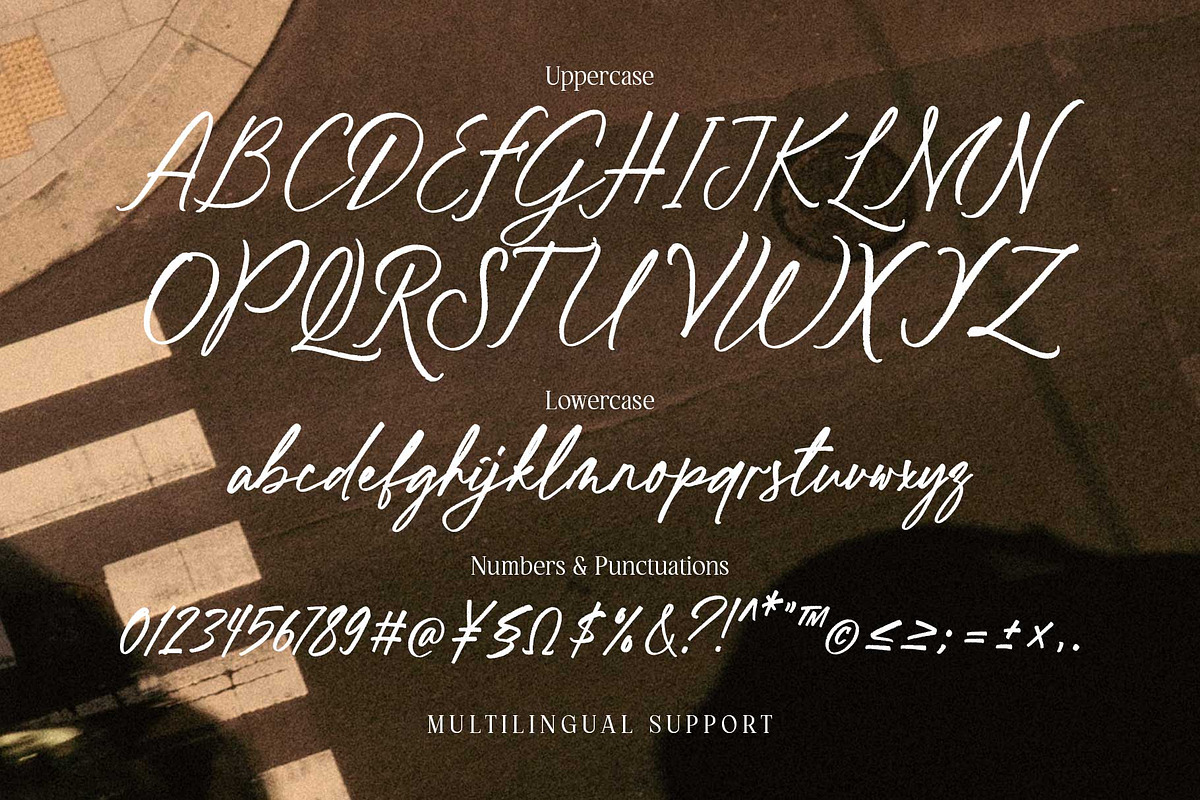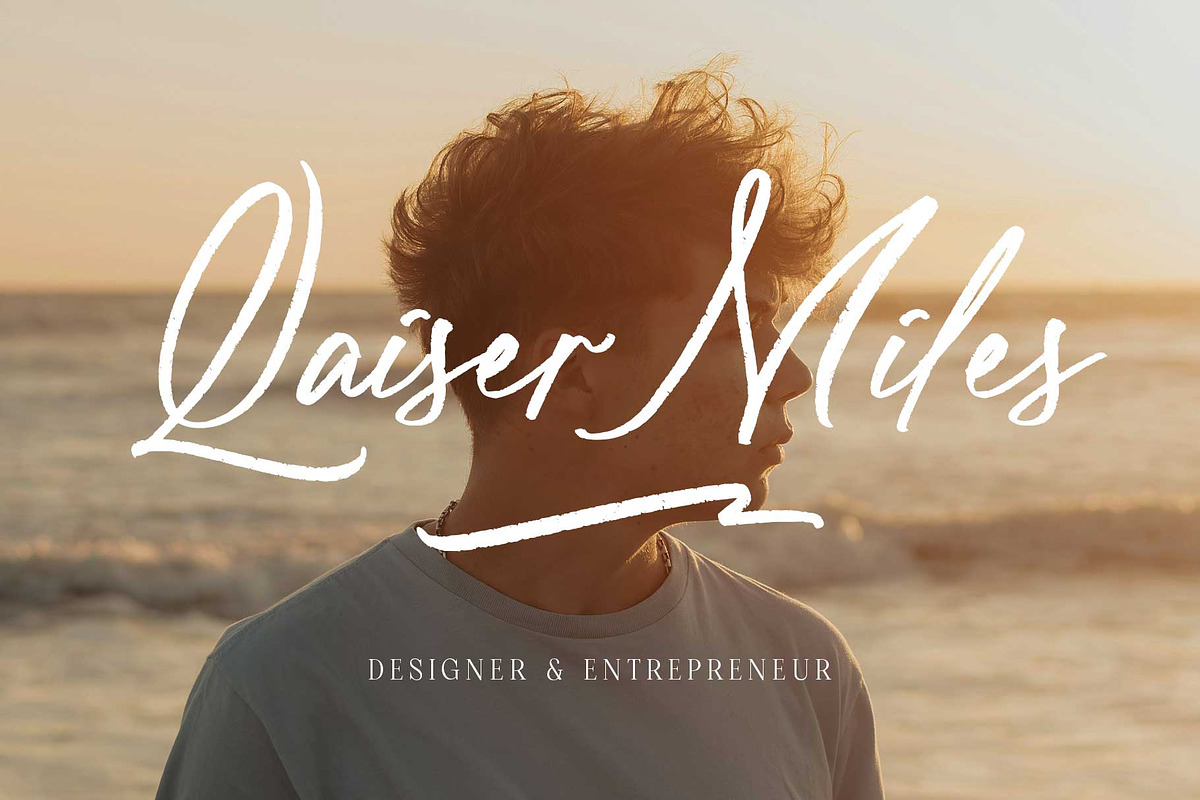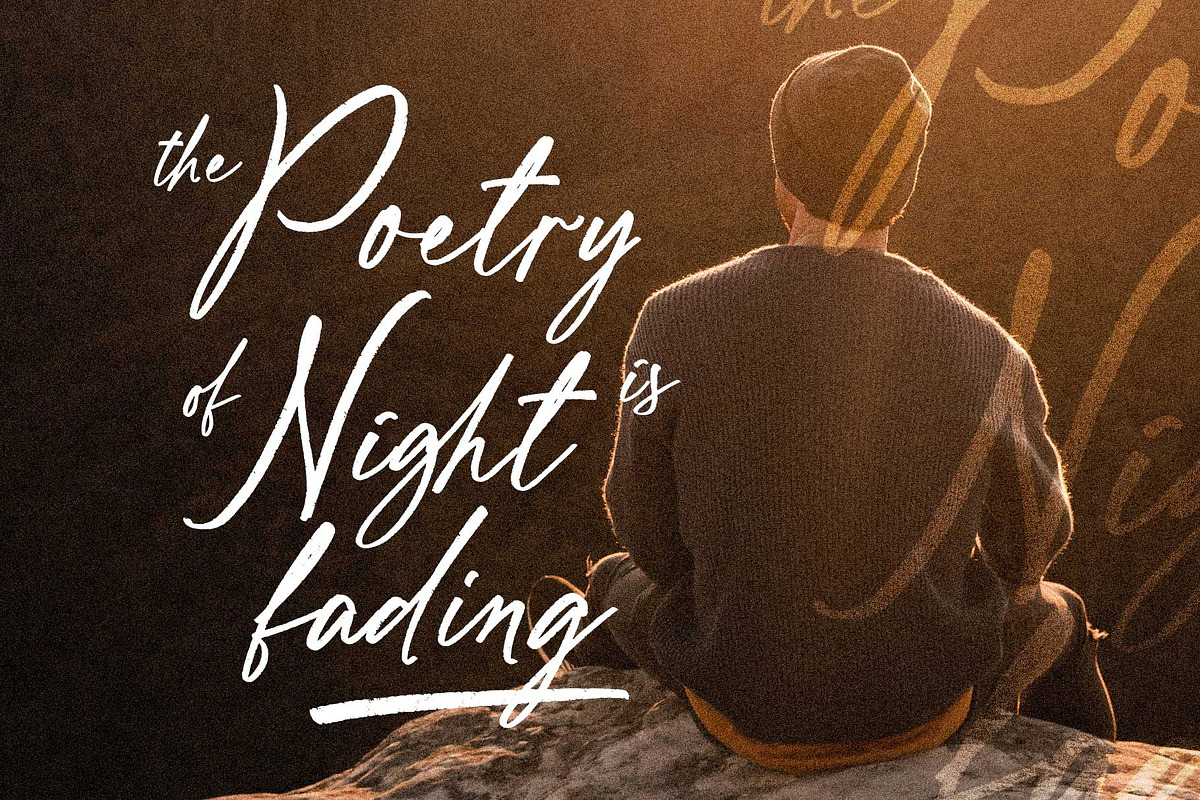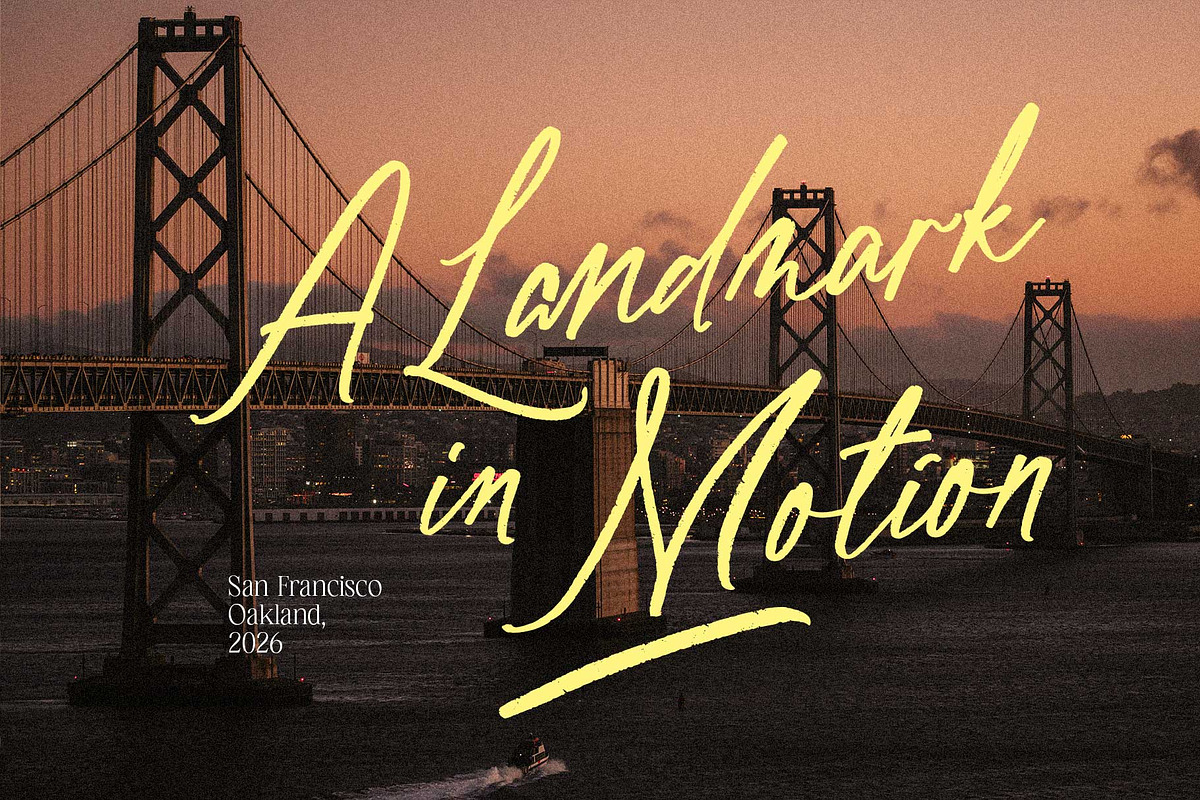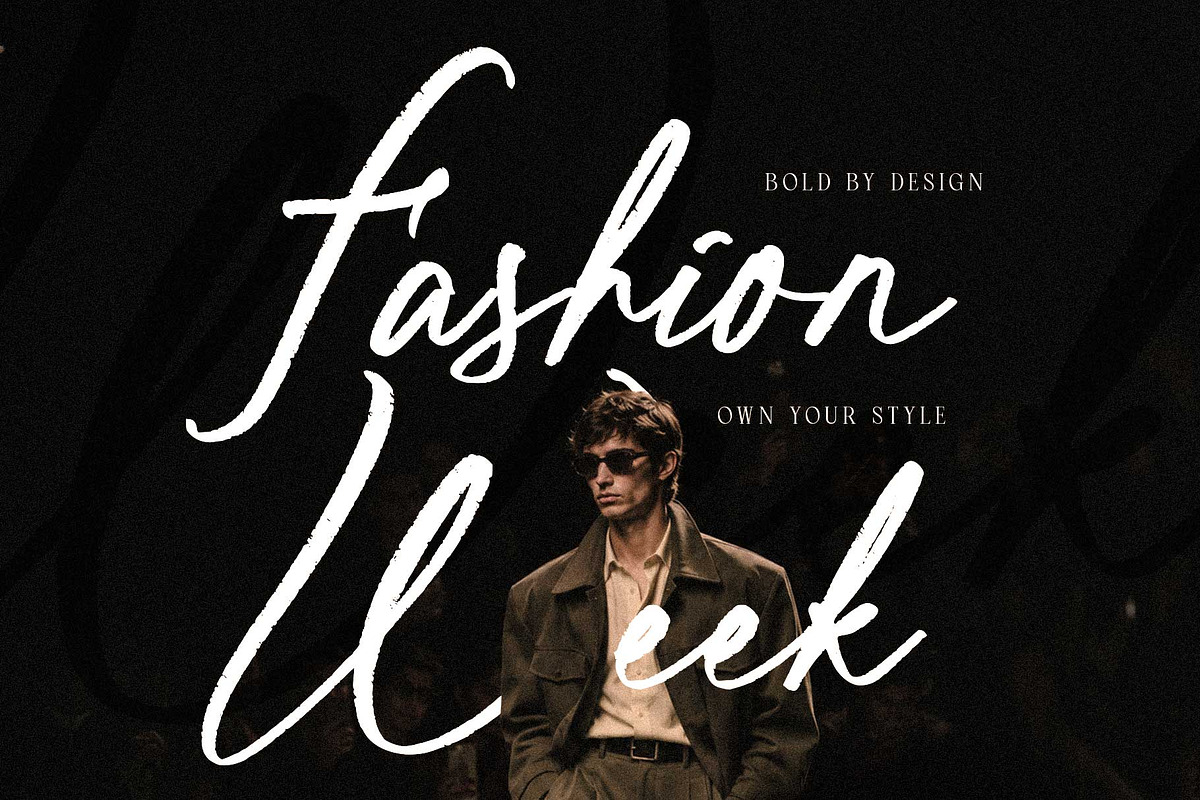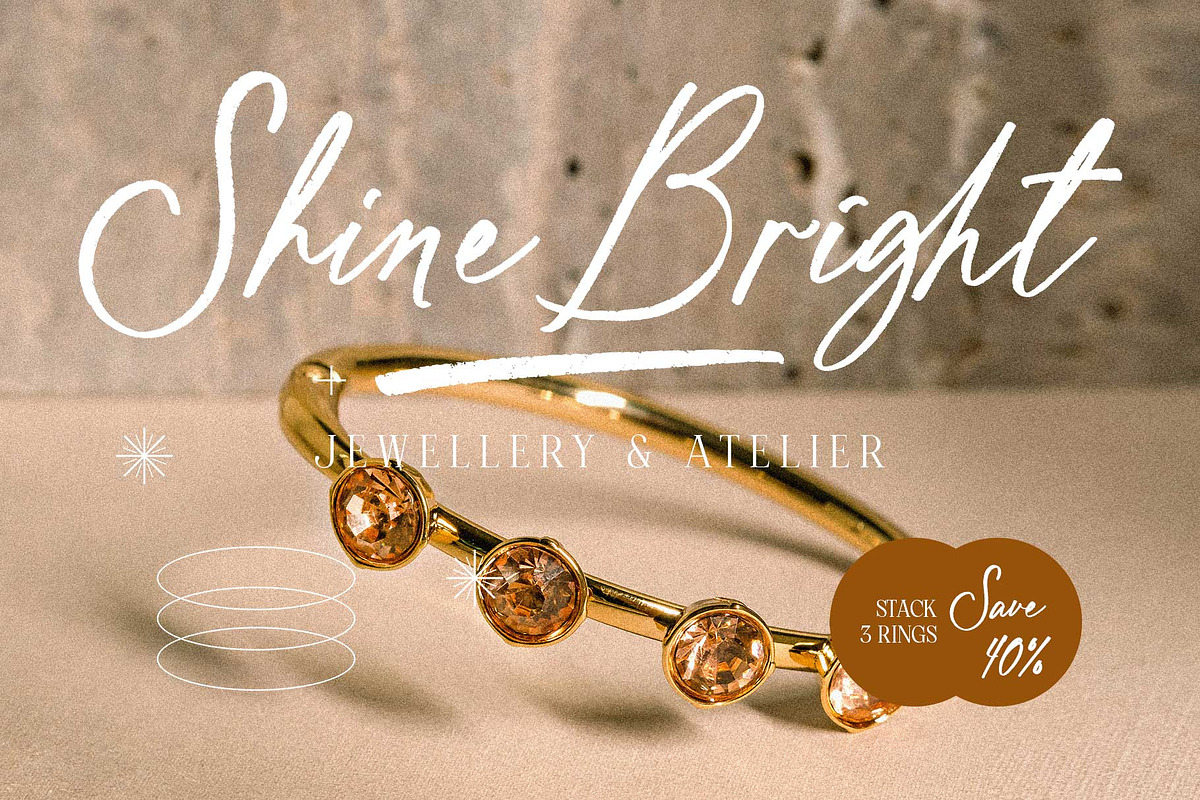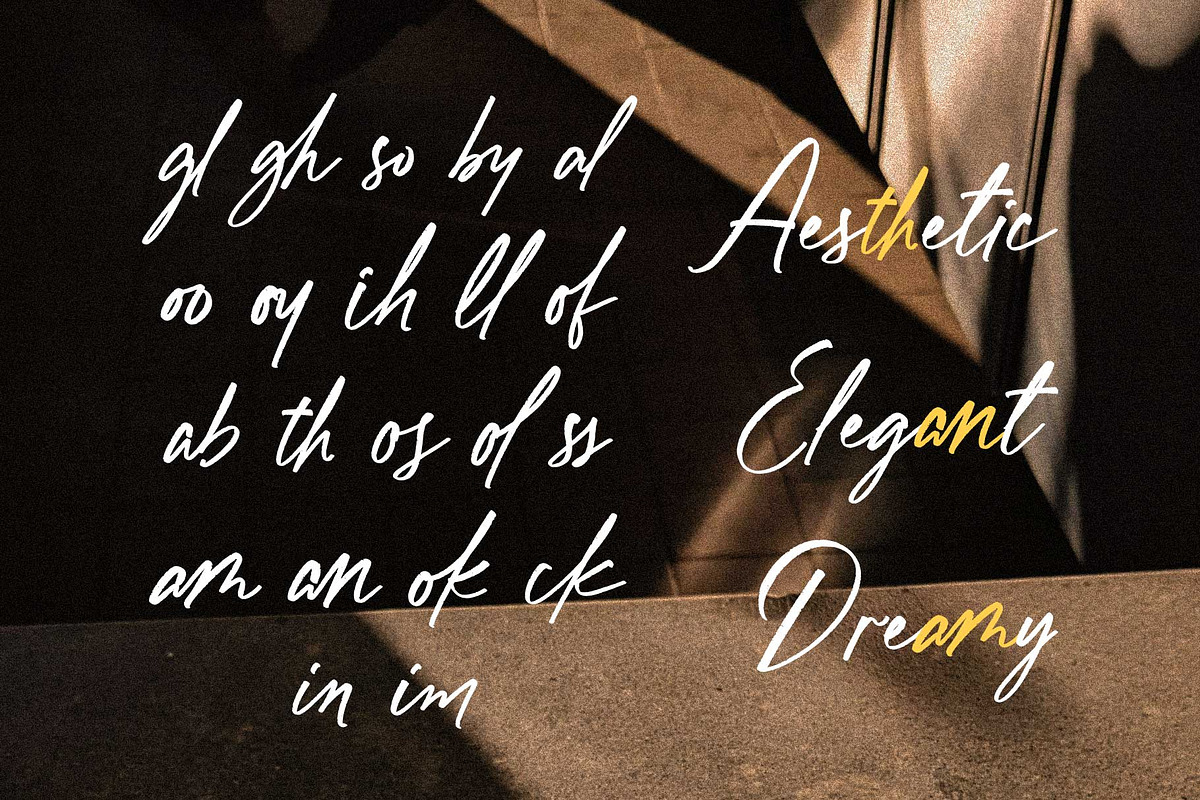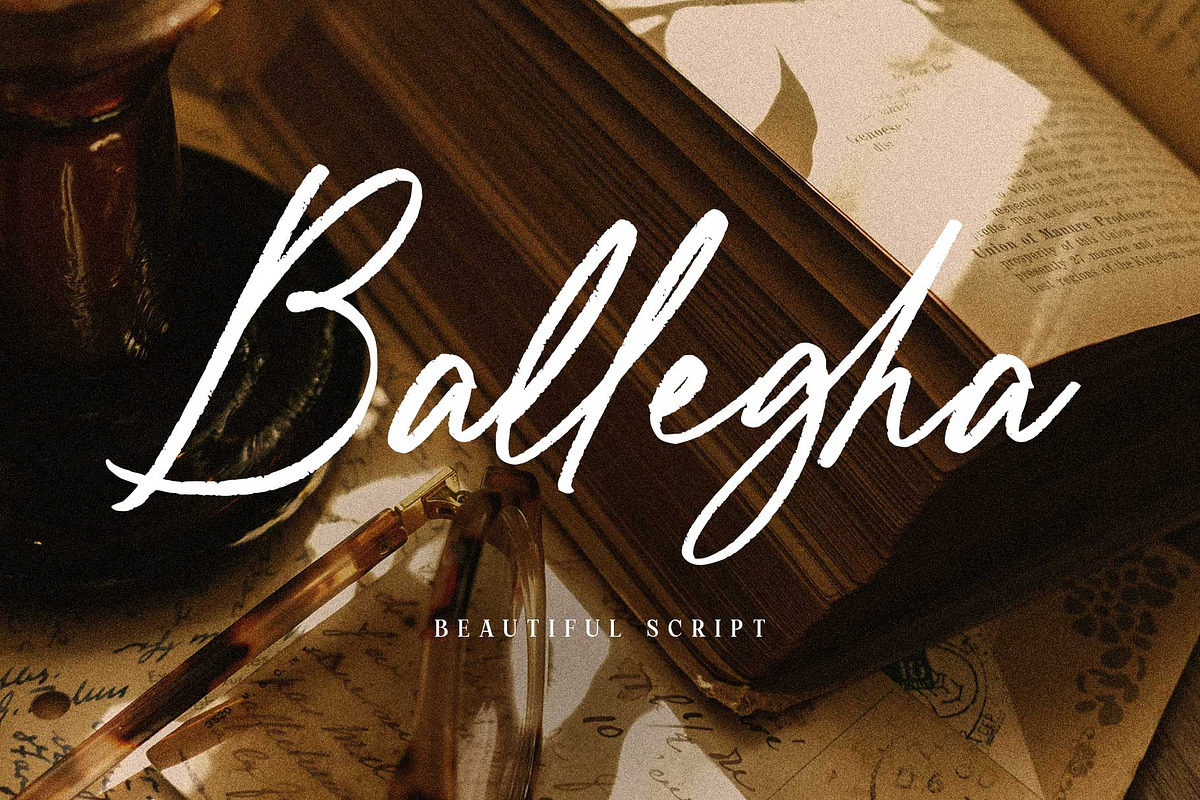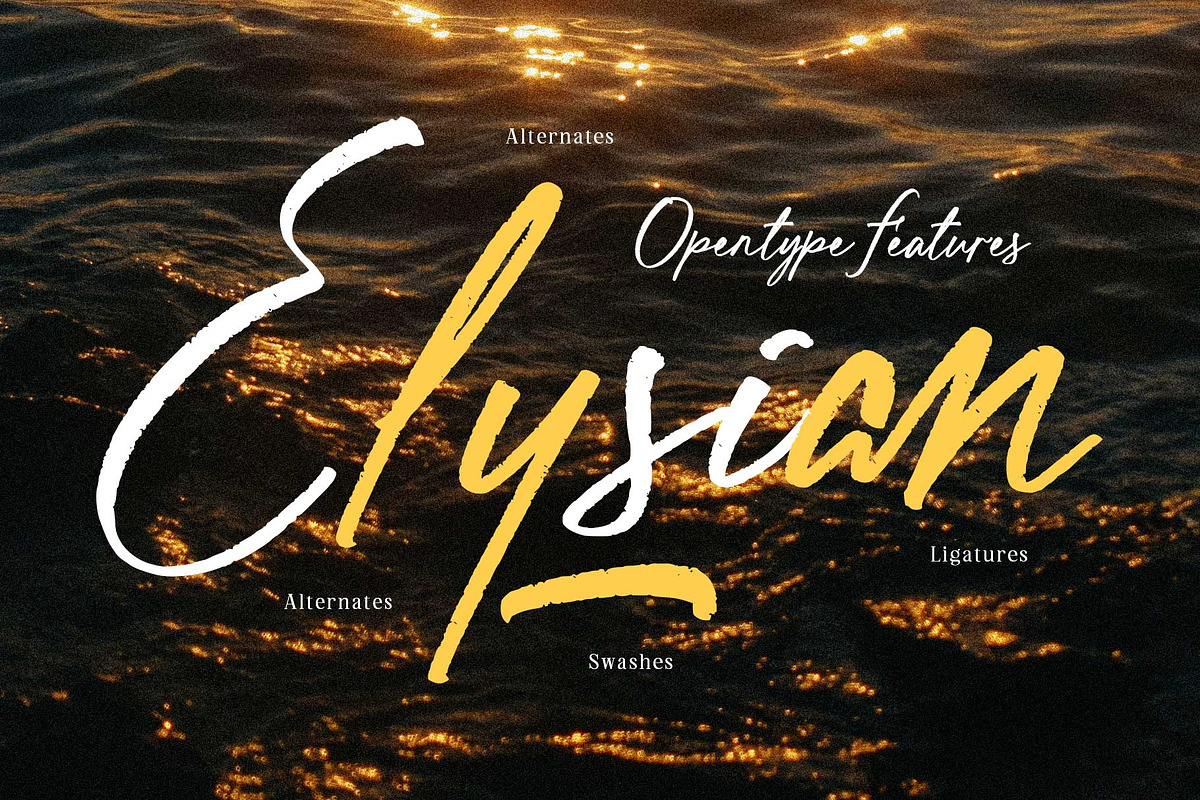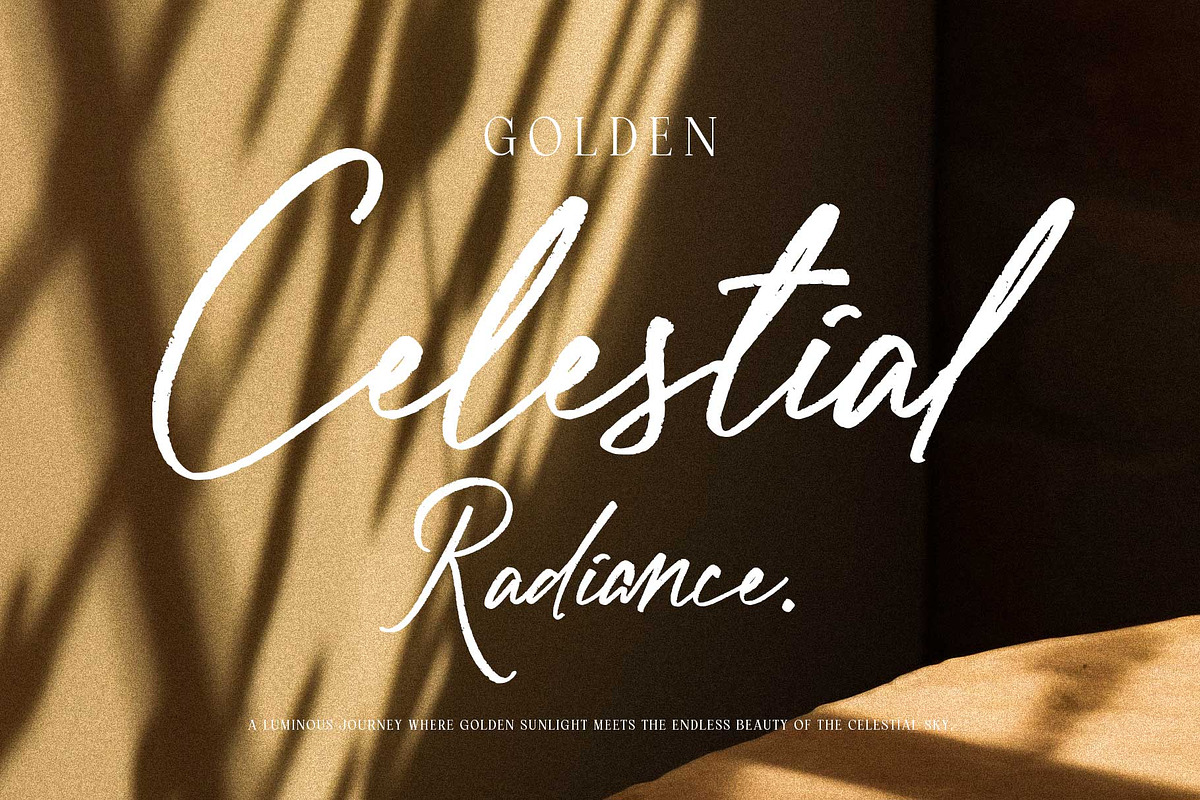
Ballegha - Beautiful Script
Ballegha is a bold brush script with loose, flowing strokes and a slightly rough edge. The letters have plenty of movement, giving words a lively rhythm that feels expressive without becoming overly fancy.
It’s a great fit for fashion, beauty, lifestyle, branding, packaging, posters, album artwork, social media, and editorial designs. Use it big and confident for headlines, or keep it simple for a more relaxed look.
With alternates, swashes, ligatures, numerals, punctuation, and multilingual support, Ballegha gives you plenty of room to play. Mix different letterforms, throw in a swash here and there, and make each composition feel a little different.